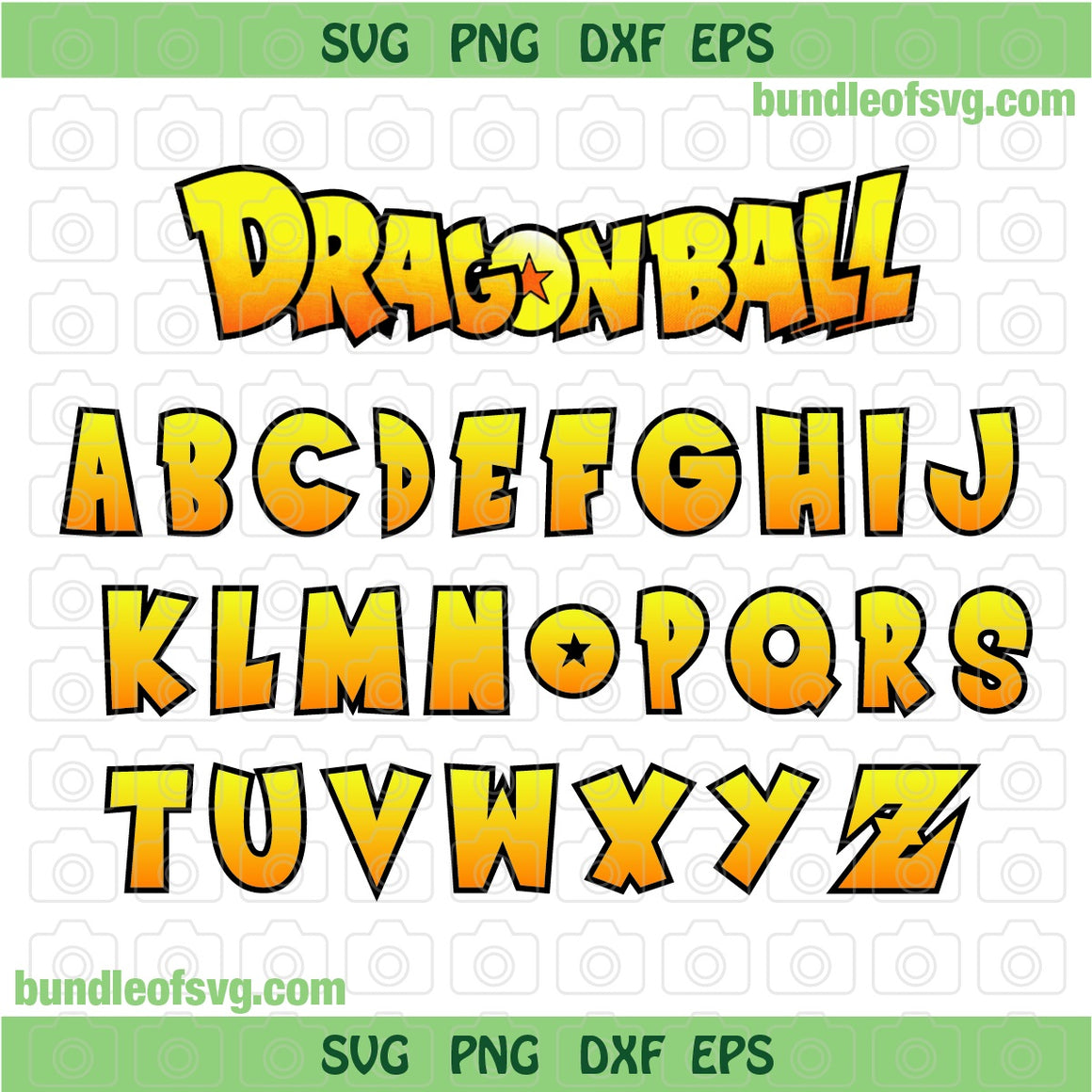
Dragon Ball Font
Dragon Ball Font - Web dragon ball z is an anime sequel to the dragon ball tv series, based on the dragon ball manga written by akira toryama. Whether you're a fan of cartoons, dbz, manga, or son goku himself, our font generator allows you to. Web here is a dragonball z font, finally one on the web. The font is free for both personel. Mise en ligne sur dafont : Web dragonball z also known as saiyan sans font is a fancy, various font designed by ben palmer. The font is licensed as free. Web create stunning text effects with our font style text effect generator. Voir tous les caractères (56).
Mise en ligne sur dafont : Whether you're a fan of cartoons, dbz, manga, or son goku himself, our font generator allows you to. Web here is a dragonball z font, finally one on the web. The font is free for both personel. Web create stunning text effects with our font style text effect generator. Web dragon ball z is an anime sequel to the dragon ball tv series, based on the dragon ball manga written by akira toryama. The font is licensed as free. Web dragonball z also known as saiyan sans font is a fancy, various font designed by ben palmer. Voir tous les caractères (56).
Web create stunning text effects with our font style text effect generator. Web dragonball z also known as saiyan sans font is a fancy, various font designed by ben palmer. Web dragon ball z is an anime sequel to the dragon ball tv series, based on the dragon ball manga written by akira toryama. Voir tous les caractères (56). The font is free for both personel. Web here is a dragonball z font, finally one on the web. Whether you're a fan of cartoons, dbz, manga, or son goku himself, our font generator allows you to. Mise en ligne sur dafont : The font is licensed as free.
Web dragonball z also known as saiyan sans font is a fancy, various font designed by ben palmer. Whether you're a fan of cartoons, dbz, manga, or son goku himself, our font generator allows you to. Web here is a dragonball z font, finally one on the web. Mise en ligne sur dafont : The font is licensed as free.
The font is licensed as free. Web dragon ball z is an anime sequel to the dragon ball tv series, based on the dragon ball manga written by akira toryama. Whether you're a fan of cartoons, dbz, manga, or son goku himself, our font generator allows you to. Web create stunning text effects with our font style text effect generator..
Web dragon ball z is an anime sequel to the dragon ball tv series, based on the dragon ball manga written by akira toryama. Web dragonball z also known as saiyan sans font is a fancy, various font designed by ben palmer. Web here is a dragonball z font, finally one on the web. The font is licensed as free..
Web create stunning text effects with our font style text effect generator. Mise en ligne sur dafont : Web dragon ball z is an anime sequel to the dragon ball tv series, based on the dragon ball manga written by akira toryama. Web dragonball z also known as saiyan sans font is a fancy, various font designed by ben palmer..
The font is licensed as free. Mise en ligne sur dafont : Web create stunning text effects with our font style text effect generator. The font is free for both personel. Voir tous les caractères (56).
Web dragon ball z is an anime sequel to the dragon ball tv series, based on the dragon ball manga written by akira toryama. Mise en ligne sur dafont : The font is free for both personel. The font is licensed as free. Whether you're a fan of cartoons, dbz, manga, or son goku himself, our font generator allows you.
The font is free for both personel. Web dragonball z also known as saiyan sans font is a fancy, various font designed by ben palmer. Web here is a dragonball z font, finally one on the web. Mise en ligne sur dafont : Voir tous les caractères (56).
The font is licensed as free. Whether you're a fan of cartoons, dbz, manga, or son goku himself, our font generator allows you to. The font is free for both personel. Voir tous les caractères (56). Web dragon ball z is an anime sequel to the dragon ball tv series, based on the dragon ball manga written by akira toryama.
The font is free for both personel. The font is licensed as free. Web here is a dragonball z font, finally one on the web. Mise en ligne sur dafont : Whether you're a fan of cartoons, dbz, manga, or son goku himself, our font generator allows you to.
Web dragonball z also known as saiyan sans font is a fancy, various font designed by ben palmer. Voir tous les caractères (56). Web here is a dragonball z font, finally one on the web. Web dragon ball z is an anime sequel to the dragon ball tv series, based on the dragon ball manga written by akira toryama. Whether.
Web Dragonball Z Also Known As Saiyan Sans Font Is A Fancy, Various Font Designed By Ben Palmer.
Voir tous les caractères (56). Whether you're a fan of cartoons, dbz, manga, or son goku himself, our font generator allows you to. The font is free for both personel. Web here is a dragonball z font, finally one on the web.
Web create stunning text effects with our font style text effect generator. Mise en ligne sur dafont : Web dragon ball z is an anime sequel to the dragon ball tv series, based on the dragon ball manga written by akira toryama.